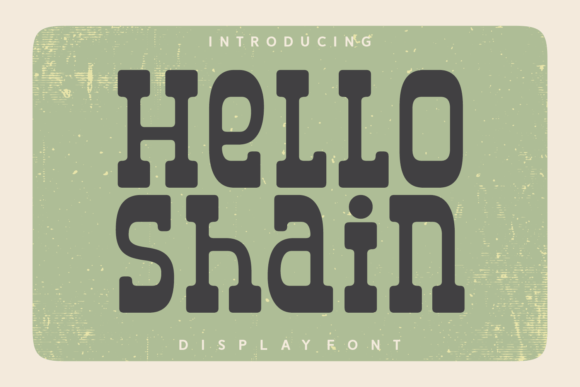
Hello Shain: A Timeless Slab Serif for Modern Editorial Design
When it comes to crafting visually appealing and readable content, the right font can make all the difference. Hello Shain is a clean and vintage slab serif font that offers the perfect blend of old-world charm and contemporary style. Its bold slab serifs and clean lines bring a sense of timeliness and elegance to any publication or digital project.
Elevating Editorial Design with Hello Shain
For bloggers, publishers, and editorial designers, choosing the right typeface means more than aesthetics—it's about enhancing readability and reinforcing brand identity. Hello Shain’s structured yet approachable design makes it ideal for use in blog headers, magazine covers, and ebook titles. The font’s vintage feel adds a touch of nostalgia without compromising on clarity, making it suitable for both print and digital formats.
Its slab serifs provide strong visual weight, which helps draw attention to headlines and section titles. This makes Hello Shain an excellent choice for creating eye-catching cover designs or lead magnets that stand out in a crowded content landscape.
Practical Uses Across Content Formats
Hello Shain is versatile enough to be used across various content formats. In lifestyle blogs, its warm and inviting tone complements photography and storytelling. For recipe ebooks, it adds a classic appeal that pairs well with food photography. In wedding guides, Hello Shain brings a romantic and elegant feel, while in coaching workbooks, it enhances the structure and professionalism of the material.
When designing a digital magazine or printable planner, Hello Shain can serve as the primary font for chapter openers, section headings, and even pull quotes. It works especially well when paired with a clean sans serif font for body text, ensuring that the layout remains balanced and easy to read.
Supporting Visual Hierarchy and Reader Engagement
A well-designed layout uses typography to guide the reader through the content. Hello Shain supports this by offering a clear visual hierarchy. Its bold serifs help emphasize key elements like titles and subtitles, while its consistent stroke width ensures a cohesive look across different sections of a publication.
Using Hello Shain for headings and accents can create a subtle but effective contrast against lighter, more readable fonts used for body copy. This contrast helps maintain reader attention and improves overall engagement, especially in long-form content such as newsletters or guides.
Readability Across Platforms
Whether your content is viewed on screen, printed, or exported as a PDF, Hello Shain maintains its legibility. Its clean lines ensure that it doesn’t become cluttered at smaller sizes, making it suitable for mobile layouts and web-based content. For print projects, the font’s solid construction prevents issues with ink bleed or poor resolution, ensuring professional results every time.
Designers should also consider how Hello Shain behaves in different color schemes and backgrounds. Its slab serifs perform well against light or dark backgrounds, allowing for flexibility in branding and visual styling.
Font Pairing and Stylistic Options
While Hello Shain is a display font, it can be effectively paired with other fonts to create dynamic layouts. For example, pairing it with a modern sans serif font like Helvetica or Arial can create a balanced look in magazine spreads or newsletter templates. For a more refined appearance, combining it with a traditional serif font like Garamond might enhance the vintage feel of a publication.
When using Hello Shain in editorial projects, it’s important to check the available styles, weights, and alternates. These options allow for greater typographic variation, helping to avoid repetition and keep the design fresh across multiple pages or sections.
Incorporating Hello Shain into your brand identity can also help establish a unique visual voice. Whether it’s used in logo design, packaging design, or social media graphics, the font’s distinctive character reinforces a consistent and recognizable brand image.
For content creators looking to build a strong editorial presence, Hello Shain is more than just a font—it’s a tool that supports creativity, readability, and brand consistency across all platforms.